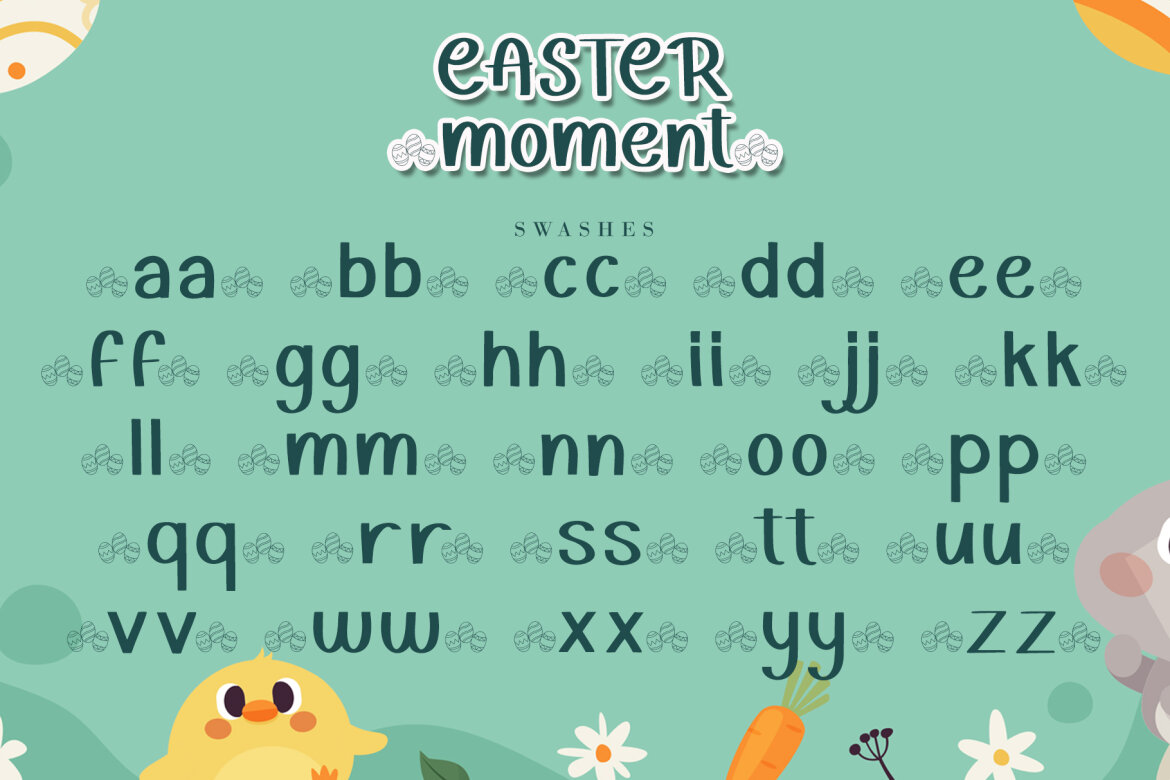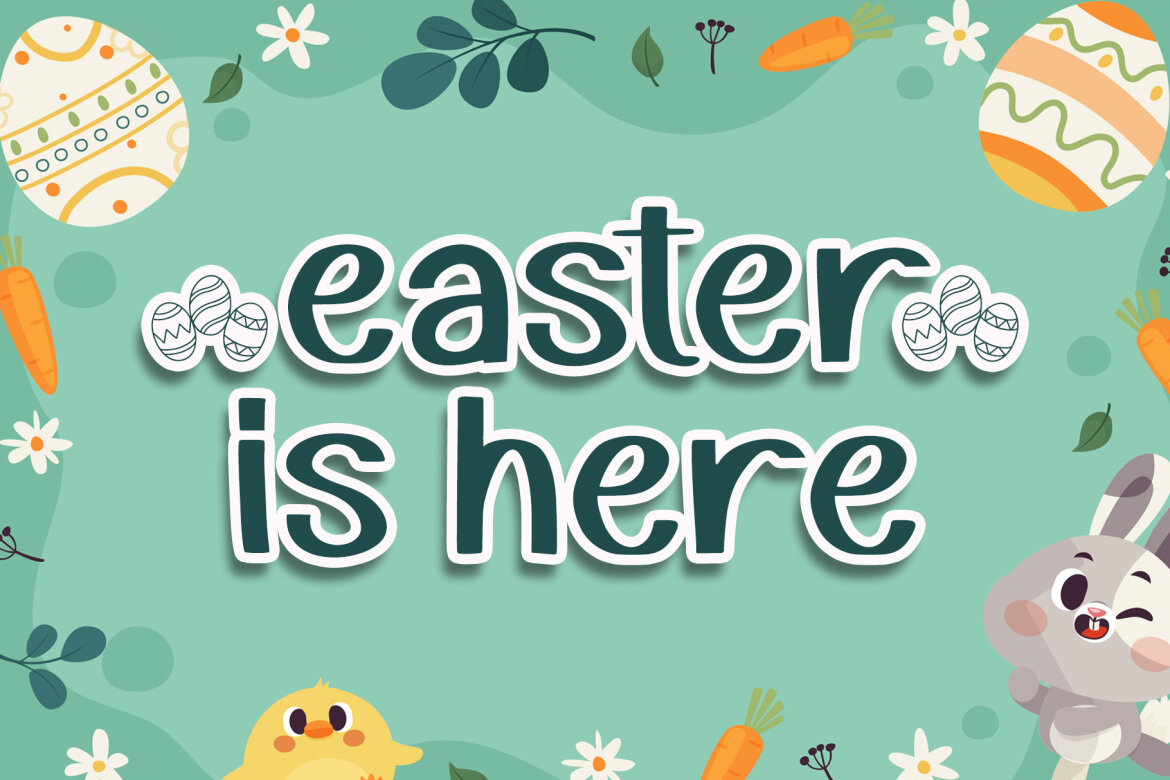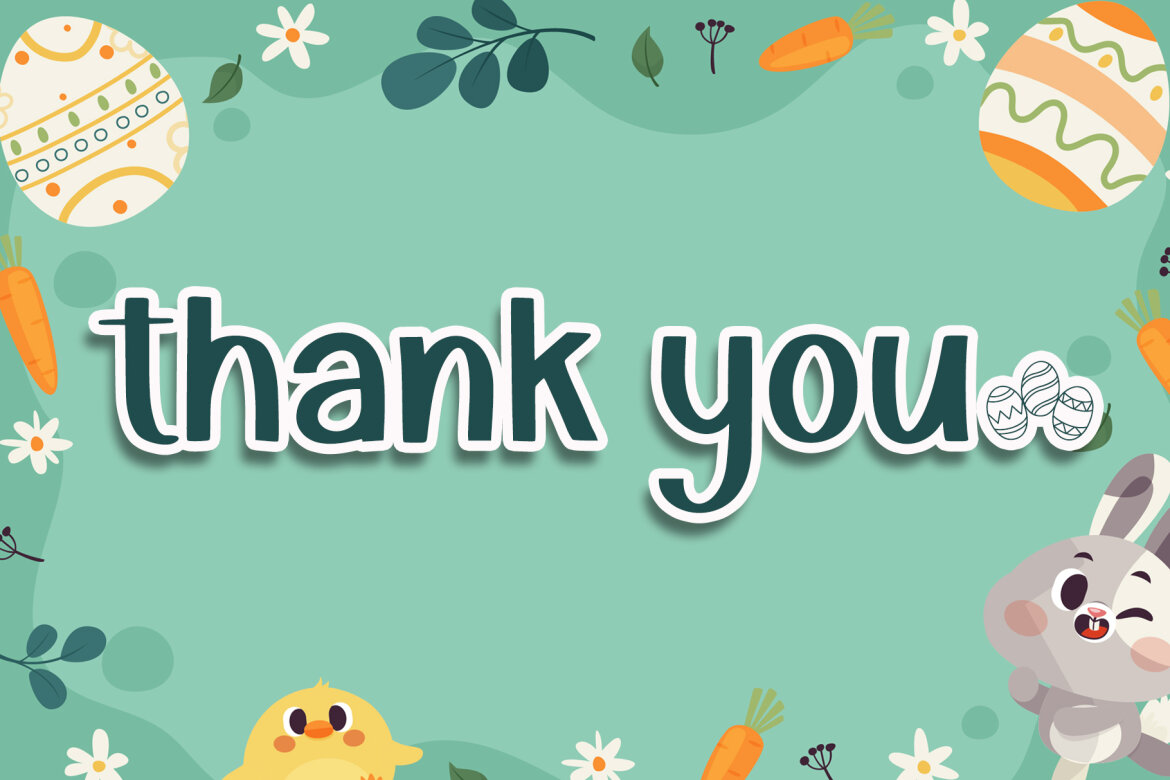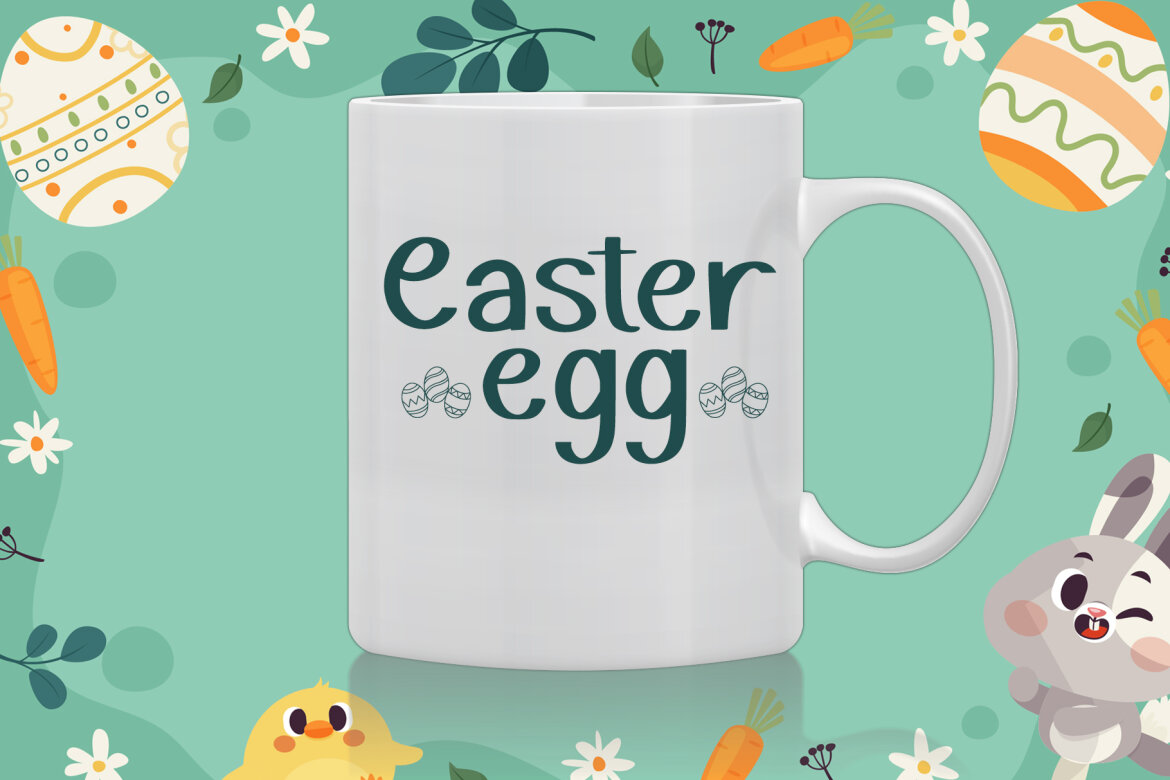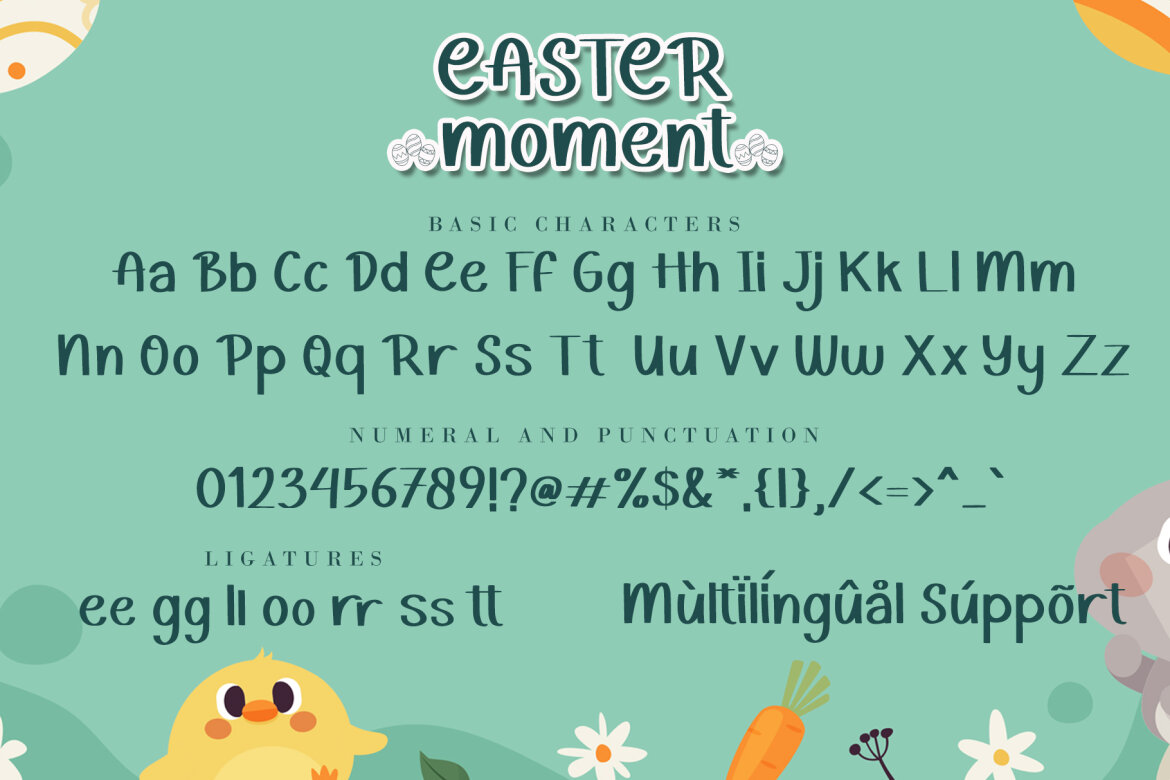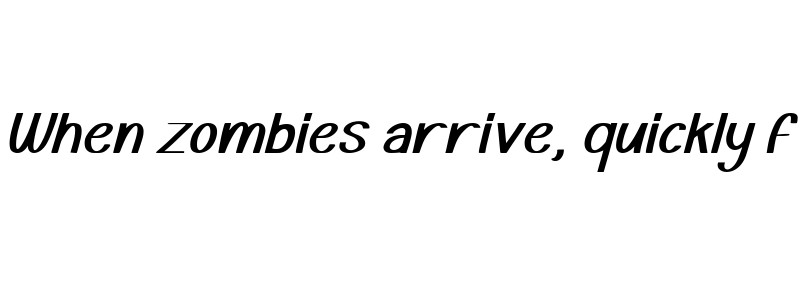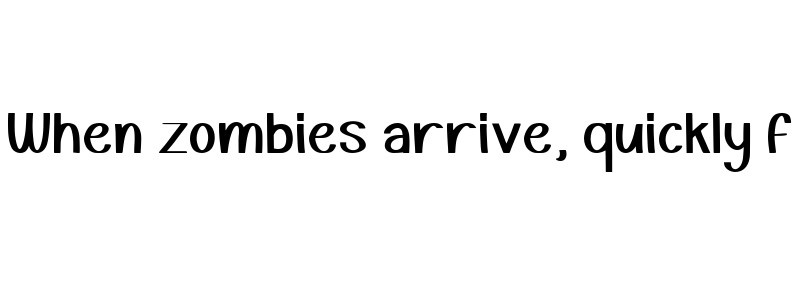
Easter Moment Free Font
Easter Moment is a romantic and sweet handwritten font. It is ideal for Easter-themed crafting, greeting cards, or any other design that may need a lovely, personalized touch! This font is PUA encoded which means you can access all of the glyphs and swashes with ease!
• ligatures, swashes & titiling
• support multilingual; ä ö ü ä ö ü ß ¿ ¡